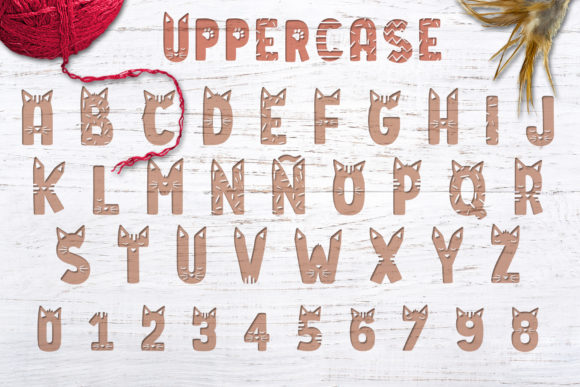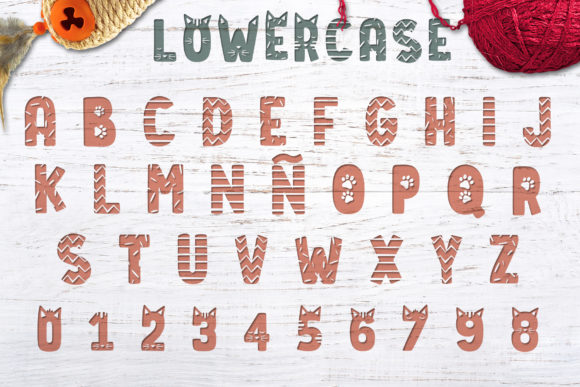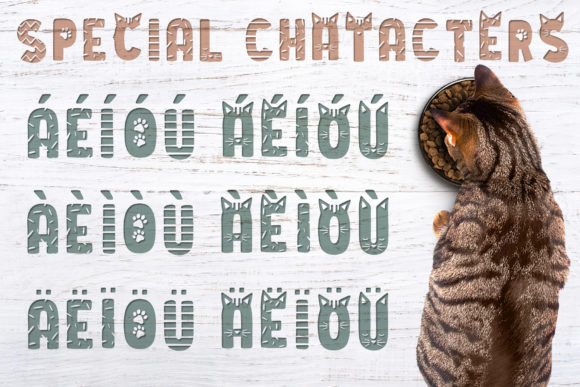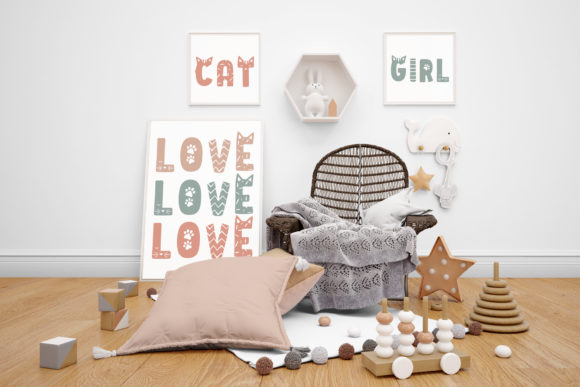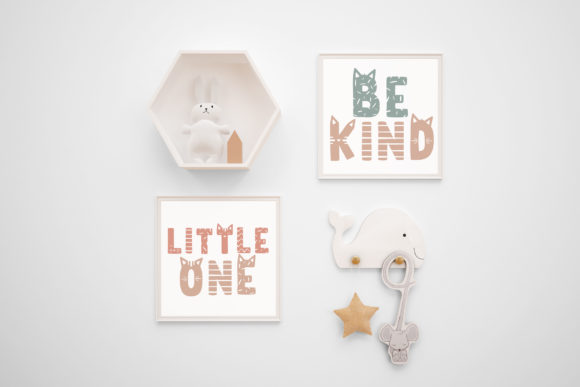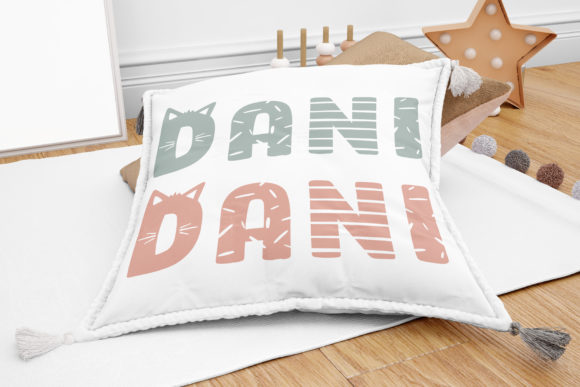
Cat Lady Font
Cat Lady is a cool, thick lettered decorative font. No matter the topic, this font will be an incredibly asset to your fonts’ library, as it has the potential to elevate any creation.